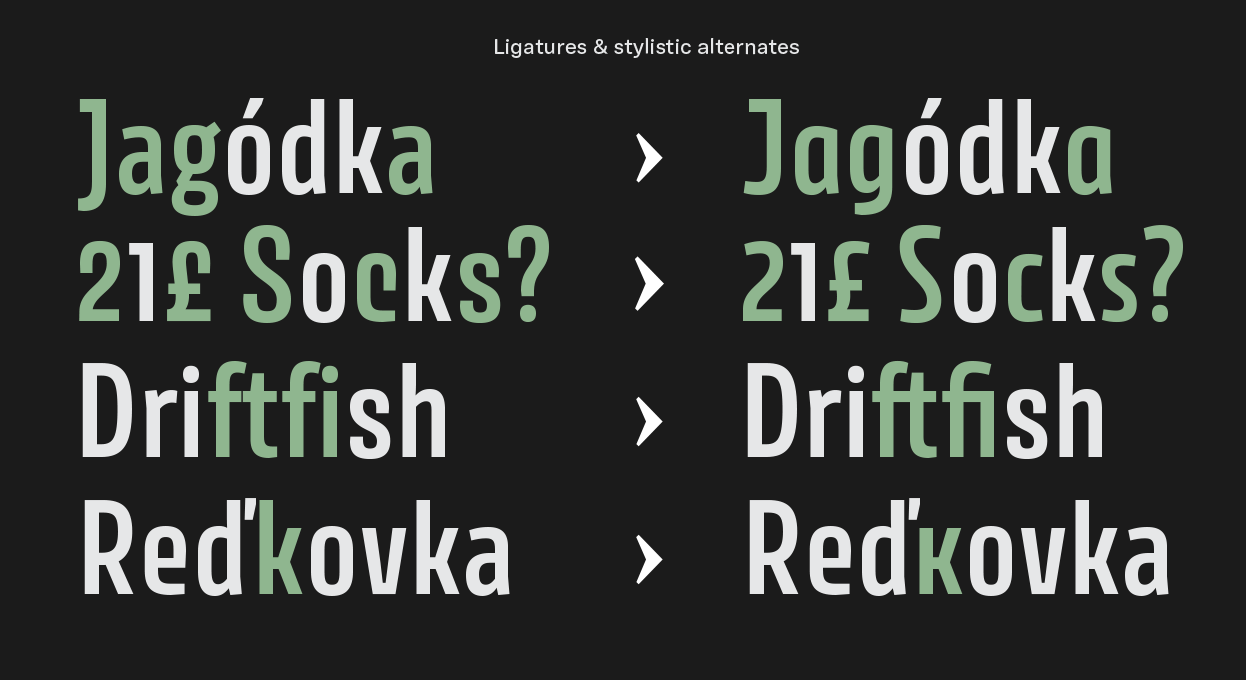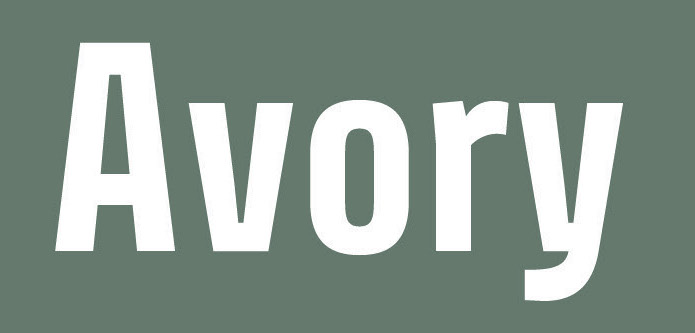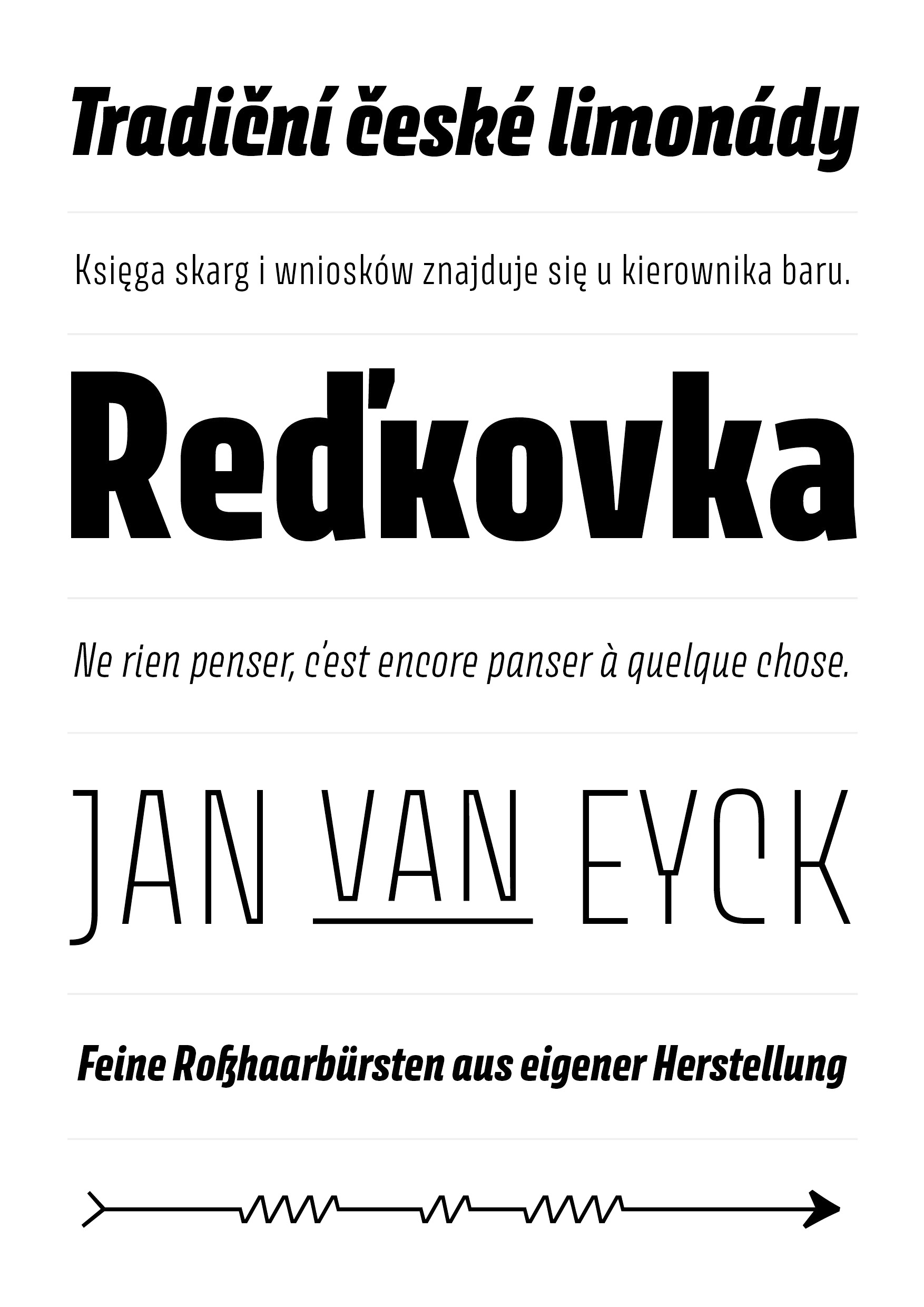
Jaroslav Benda
Czech painter, graphic artist, author, designer of postage stamps and posters, b. 1882, d. 1970, Prague. From 1920 onwards he was Professor of Applied Arts at the School of Applied Arts.
Petra Docekalova, an expert on Benda, writes: Czech typography has been long influenced and deeply shaped by an incredibly hard-working figure---Jaroslav Benda. He was an important pillar who stood at the beginnings of contemporary Czech typography. He was an influencer who greatly inspired generations of type designers.
Creator of a rather clumsy typeface in 1923 that exhibits quite a few irregularities (image below from Veronika Burian's thesis). Veronika writes in 2017: In the 1930s, Benda attempted to develop his first, typically Czech, typeface. He sent his drawings to the Monotype Corporation for casting, but the design never made it into production. As Benda believed the drawings had been destroyed, he continued revising his own version until the 1960s. In 1962, at the age of 80, he and his daughter Jarka Tupa published Betu (Benda-Tupa), an evolutionary conclusion of the designs supplied to Monotype. Donald Partyka believes that Betu was designed in 1952, but, as mentioned above, it has its roots in that original typeface from 1923. Revivals and reinterpretations of his work:
• In 2012, at Type@Cooper in New York, Donald Partyka revived Betu as Benda.
• In 2017, Tomas Brousil designed a retro script typeface in Benda's honor, simply called Jaroslav. Brousil followed that up in 2020 with Benda.
• In 2017, Slavka Jevcinova published Avory Latin at Rosetta Type Foundry.
References: In 2014, Petra Docekalova wrote a thesis about Jaroslav Benda. This led to the book Jaroslav Benda 1882-1970 by Lucie Urbankova and Petra Docekalova (2017, in Czech). Kickstarter project in 2020 to extend and translate the text in English.